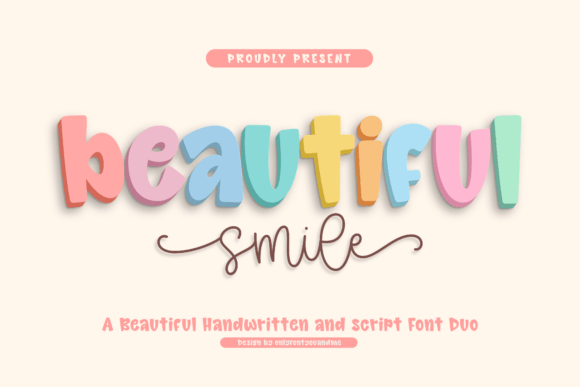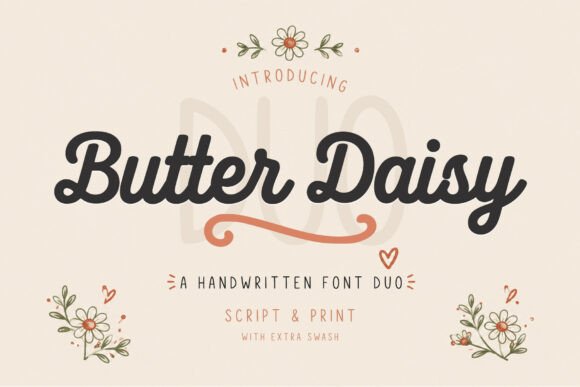
There are two ways to get a full bubble fonts alphabet: draw one yourself, or install a typeface and be finished in thirty seconds. Both are worth knowing. Drawing teaches you why some bubble letters look right and others look inflated in the wrong places, which makes you far better at picking a font afterwards. This guide covers the drawing method first, then twenty-two alphabets you can download.
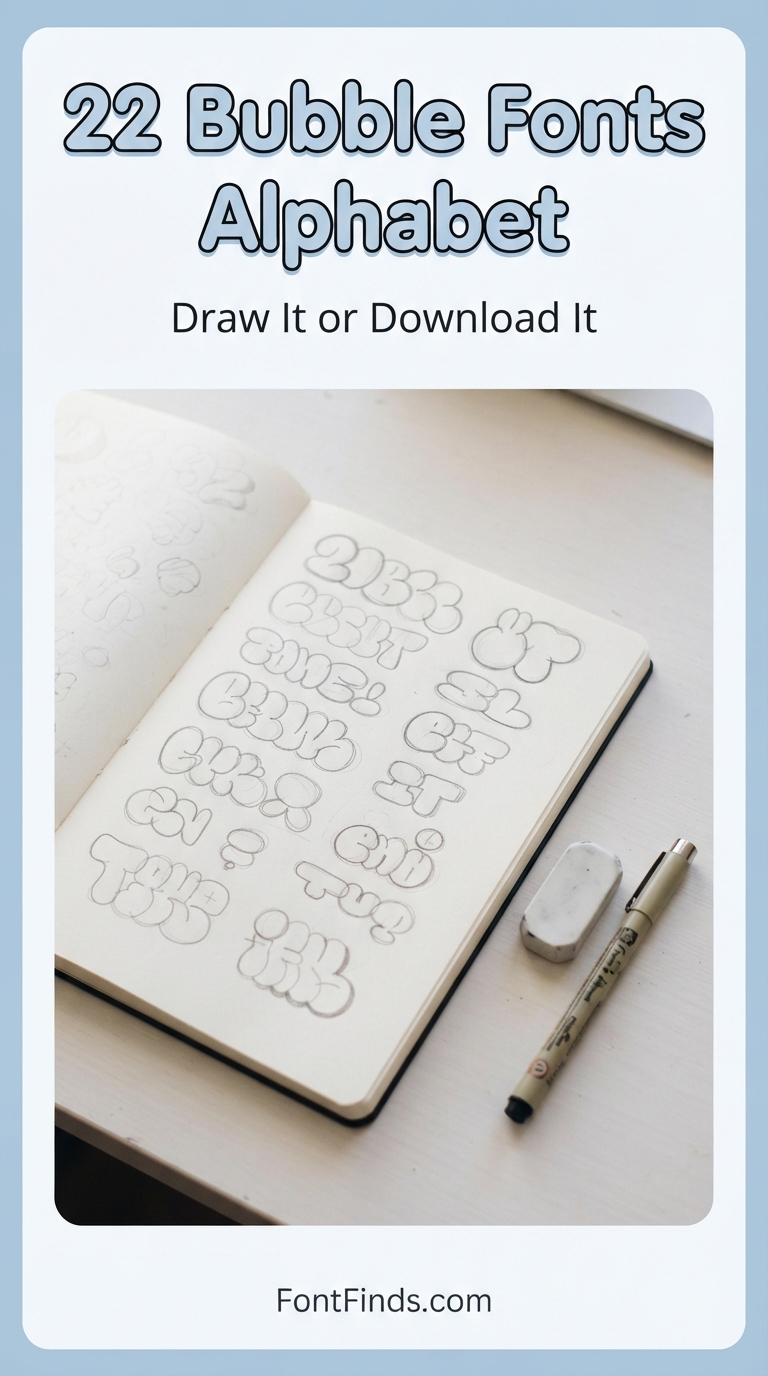
Drawing a Bubble Fonts Alphabet in Five Steps
Step 1: Write the skeleton
Start with a plain single-stroke version in pencil, spaced far wider than feels natural. That spacing becomes the gap between finished bubbles.
Step 2: Inflate outward, evenly
Trace a rounded outline around each stroke, keeping the distance from the skeleton constant. Uneven thickness is the biggest giveaway of a beginner alphabet.
Step 3: Round every corner
No sharp joins anywhere. Where two strokes meet, the outline should curve through the junction rather than form an angle.
Step 4: Protect the counters
The holes inside a, e, o, p and d must stay open. If inflating closed them, the letter is too thick for its size. Thin the stroke rather than shrinking the hole.
Step 5: Erase and outline
Remove the pencil skeleton and commit to the outline in ink. Optionally add a second offset outline for depth, which is the traditional throw-up finish.
The same method works whether you want a cute fonts alphabet bubble style or something closer to bubble fonts alphabet graffiti, since only the proportions change rather than the technique.
The Four Letters That Always Cause Trouble
Every bubble fonts alphabet letters set lives or dies on these four characters.
The lowercase e. The counter is small to begin with and the crossbar makes it smaller. Most failed alphabets fail here first. Give the e more width than its neighbours, not the same width.
The capital B. Two counters stacked in one letter. Inflate too far and both close, leaving a shape that reads as a filled rectangle.
The lowercase s. The double curve fights inflation. Keep the spine thinner than feels right, or the s becomes an unreadable blob.
The capital M. Four strokes converging in a small space. Widen the whole letter rather than squeezing the joins.
Once you have wrestled with those by hand, you will spot a badly drawn font in a sample image immediately, which is the real value of the exercise.
22 Ready-Made Bubble Fonts Alphabet Sets
If you would rather skip the pencil stage, these are complete sets with the counter and spacing problems already solved.
1. Butter Daisy
Bring a touch of cozy, rustic charm to your creative designs with Butter Daisy, a delightful handwritten font duo pairing a smooth, rounded cursive script with a clean, hand-drawn print font!
2. Beautiful Smile
Beautiful Smile is a playful handwritten font duo combining bold, rounded display lettering with a smooth, flowing script companion.
3. Katterine Rose
4. Frozzy Mosther
5. School Crush
Introducing School Crush – the spirited, handwritten display font that embodies a youthful vigor, effortlessly capturing the charm of schoolyard sketches.
6. Thomas Charly
7. Palmer Like
Palmer Like is a modern and playful handwritten script font. It’s great for crafters and designers. Free download.
8. Sorella Coast
Introducing Sorella Coast – a Textured Sans & Handwritten Script Font Duo that infuses every design with a radiant coastal aura.
9. The Crafty Marie
The Crafty Marie is a charming font duo that blends a bold, rounded display sans with a smooth, whimsical handwritten script.This The Crafty Marie Typeface is designed to take the guesswork out of font pairing, offering two distinct styles that share the same playful DNA.
10. Rustic Wildflower
Rustic Wildflower is a playful font duo featuring a modern sans serif and a natural handwritten script.
11. Bubble
Bubble is a sweet and cursive handwritten font. This gentle font will look gorgeous on a variety of design ideas.
12. Chick Garden Duo
Inject a burst of playful energy into your next project with the Chick Garden font duo, a delightful pairing of thick, bubbly display letters and a charming handwritten script.Expertly crafted to evoke warmth, friendliness, and energy, this versatile font duo effortlessly bridges the gap between youthful appeal and vibrant design demands.
What about lowercase?
Quality varies. Bubble letters lowercase sets are often weaker than the capitals because the tradition is capital-heavy, so always check a lowercase sample.
Can I get printable bubble letters instead of a font?
Any of these can be typed and printed as a worksheet or template, which is usually easier than hunting for individual printable sheets letter by letter.